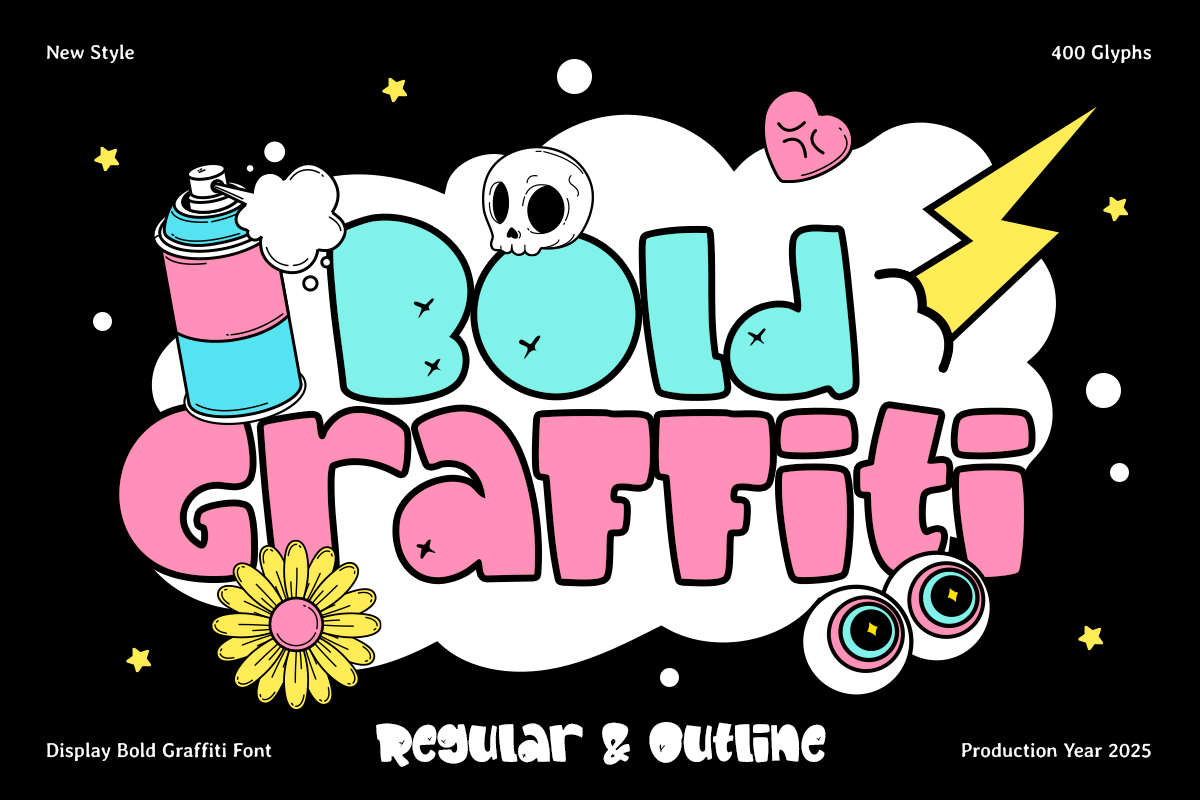
Bold Graffiti
-Display Bold Graffiti FontBold Graffiti - Display Bold Graffiti Font
BOLD GRAFFITI is a display bold graffiti font inspired by vibrant street art and urban culture. Its thick, dynamic letterforms give your designs an energetic, expressive style that stands out in any project.
Ideal for posters, logos, urban branding, music covers, or creative artwork, BOLD GRAFFITI captures the bold spirit of graffiti while remaining versatile for various design needs. Its modern, edgy shapes make it perfect for youth-oriented and artistic projects.
BOLD GRAFFITI – Display Bold Graffiti Font Features
Bold and expressive graffiti-inspired letterforms
Perfect for street art, posters, logos, and urban branding
Energetic and creative style for visual impact
OpenType features for flexible typographic use
Make a bold urban statement with BOLD GRAFFITI – the ultimate font for creative, edgy, and street-inspired designs.